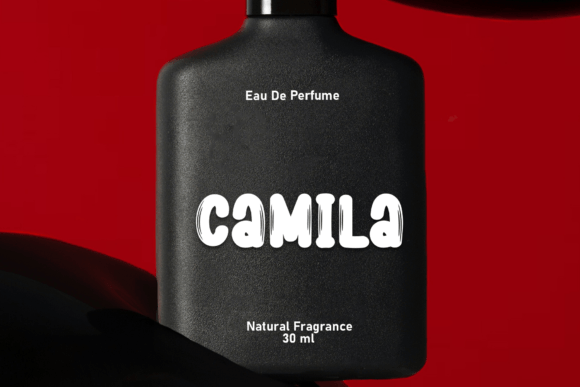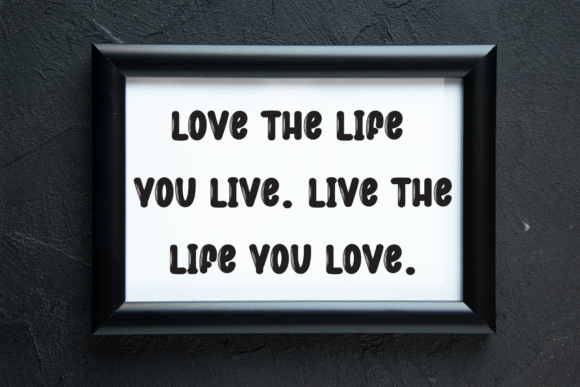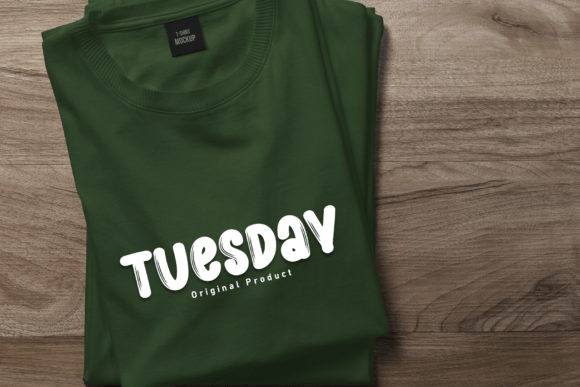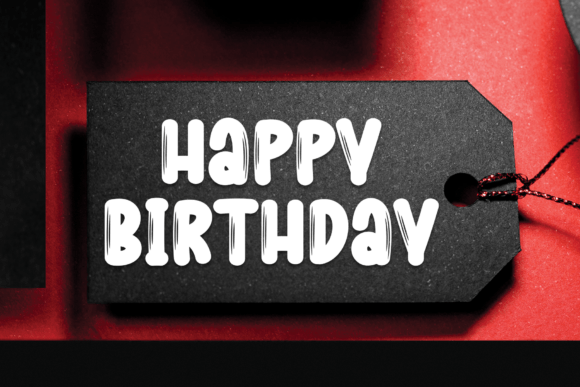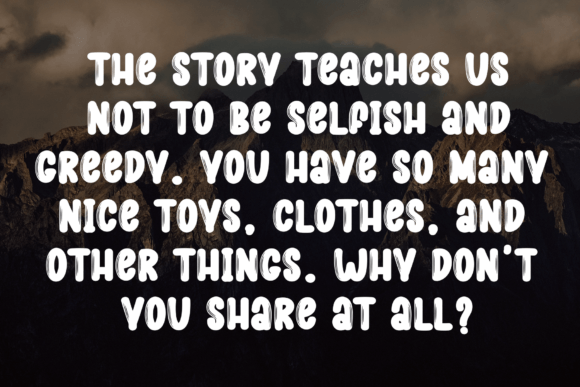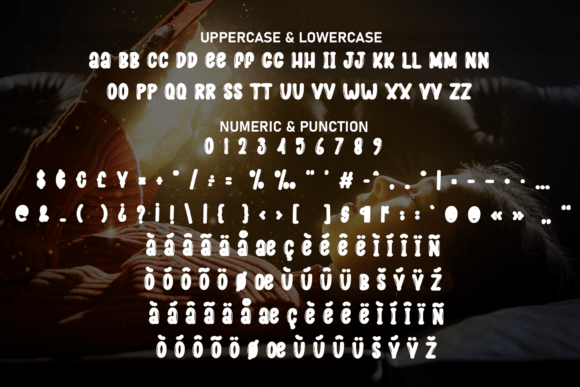
Dream Shine Font: Elevate Your Designs with a Bold and Captivating Typeface
Are you tired of using the same old fonts in your designs? Look no further than the Dream Shine font, a bold and captivating typeface that brings energy and charm to any project. With its unique brush-stroke detail and playful curves, Dream Shine is perfect for designers and crafters seeking a dynamic, hand-crafted feel.
The Unique Characteristics of Dream Shine Font
Dream Shine font boasts a distinctive brush-stroke detail that sets it apart from other fonts. This detail gives the font a hand-crafted feel, making it perfect for creative projects that require a personal touch. The font’s playful curves and striking presence also make it ideal for posters, headlines, branding, and other applications where you want to make a bold statement.
Dream Shine font is versatile and can be used in a variety of design applications, including:
- Posters: Create eye-catching posters that grab attention with Dream Shine font. Its bold and captivating presence makes it perfect for promoting events, products, or services.
- Headlines: Add a touch of elegance and sophistication to your headlines with Dream Shine font. Its unique brush-stroke detail and playful curves make it perfect for creating headlines that stand out.
- Branding: Establish a strong brand identity with Dream Shine font. Its dynamic and hand-crafted feel makes it perfect for creating logos, business cards, and other branding materials.
- Creative Projects: Bring your creative projects to life with Dream Shine font. Its bold and captivating presence makes it perfect for use in art, craft, and DIY projects.
Why Choose Dream Shine Font?
There are many reasons why you should choose Dream Shine font for your next design project. Here are just a few:
- Unique and Eye-Catching: Dream Shine font is a one-of-a-kind typeface that will make your designs stand out from the crowd.
- High-Quality: Dream Shine font is a high-quality typeface that is designed to deliver exceptional results.
- Versatile: Dream Shine font can be used in a variety of design applications, making it a great addition to any designer’s toolkit.
Tips for Using Dream Shine Font
Here are a few tips for using Dream Shine font in your designs:
- Use it Boldly: Dream Shine font is a bold and captivating typeface, so don’t be afraid to use it boldly. Use it in large sizes to create a striking presence.
- Experiment with Colors: Dream Shine font looks great in a variety of colors, so experiment with different colors to find the one that works best for your design.
- Pair it with Other Fonts: Dream Shine font can be paired with other fonts to create a unique and interesting design. Experiment with different font combinations to find the one that works best for your project.
Dream Shine font is a bold and captivating typeface that brings energy and charm to any design project. Its unique brush-stroke detail and playful curves make it perfect for posters, headlines, branding, and creative projects seeking a dynamic, hand-crafted feel. With its versatility, high-quality design, and ease of use, Dream Shine font is a great addition to any designer’s toolkit. So why wait? Download Dream Shine font today and bring your visions to life!